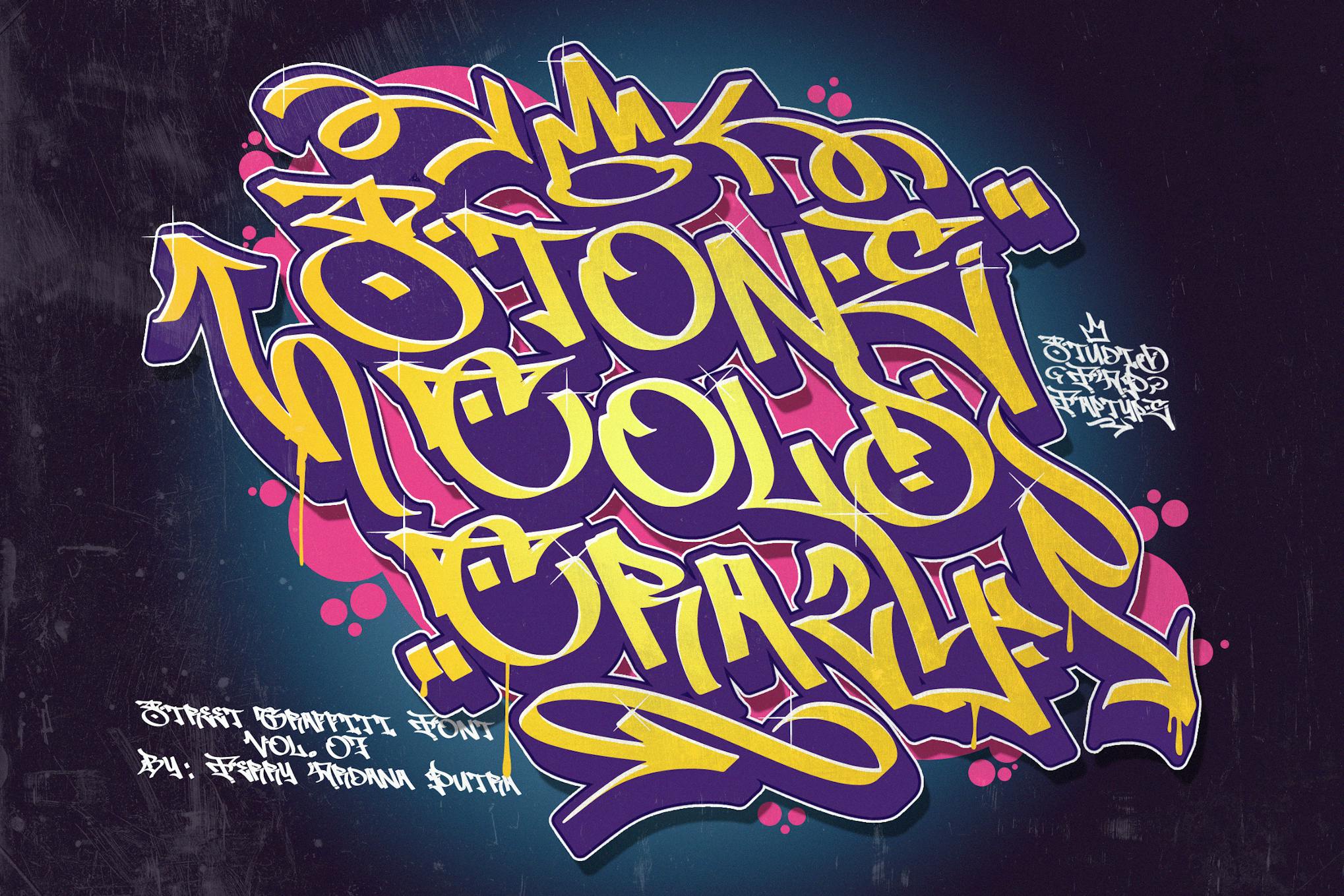
Stone Cold Crazy Graffiti | Music Album Graffiti Font
Stone Cold Crazy Graffiti | Music Album Graffiti Font Free Download is an explosive and energetic typeface that captures the raw power of street art and rock and roll. While you can download this font for free for testing purposes, for commercial use, you must purchase this font to unleash its full creative potential. This dynamic font is perfect for a wide range of creative projects, including music album covers, concert posters, streetwear branding, social media graphics, and merchandise. What makes this font so exciting is its authentic, hand-sprayed texture and rebellious style, which instantly gives your designs an urban, edgy, and unforgettable character. The Stone Cold Crazy font family includes a range of styles and features, such as a Regular version, a textured Rough version, and a collection of dynamic swashes and alternates, providing a complete and flexible design solution.
This isn’t just a font; it’s an anthem. The design of Stone Cold Crazy Graffiti is inspired by a blend of classic graffiti art and the raw energy of a live music performance. Its distinctive, free-flowing letterforms and bold presence ensure that your headlines and titles will be both memorable and highly impactful. Whether you’re a musician creating a cover for your next album, a designer working on branding for an edgy fashion line, or a creative looking for a font that conveys a sense of rebellion and power, this typeface provides the perfect foundation. The hand-sprayed aesthetic adds a layer of authentic street grit that makes your work feel real, raw, and full of character.
The versatility of the Stone Cold Crazy Graffiti family is one of its greatest strengths. You can use the regular weight for a clean, graffiti feel, or the rough version for a more intense, weathered look. The included swashes and alternates allow you to customize your text and create unique typographic compositions that feel bespoke and original. This flexibility makes it an invaluable asset for designers who need to create custom content that feels both contemporary and powerful. It's a font that works hard, delivering a look that is both stylish and full of character, ensuring your designs always make a memorable impression.